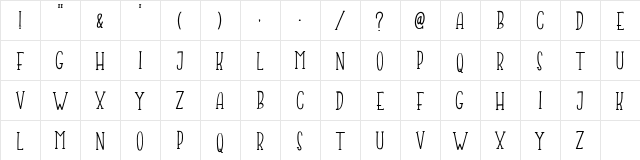
Jumping Frog Demo Regular
| Foundry | Runsell Studio |
| Designer | Edi Gunawan |
Design Context for Jumping Frog Demo Typeface
Jumping Frog Demo is a composed and adaptable typeface that performs quietly and consistently across a wide range of design contexts.